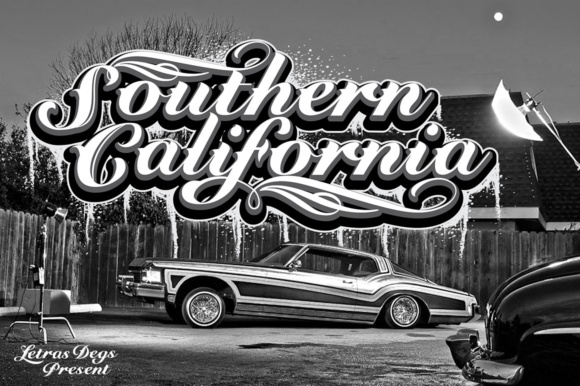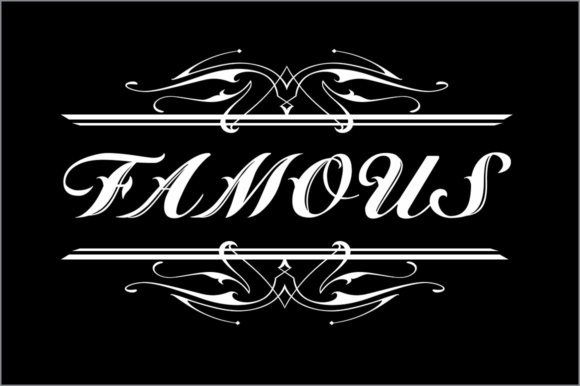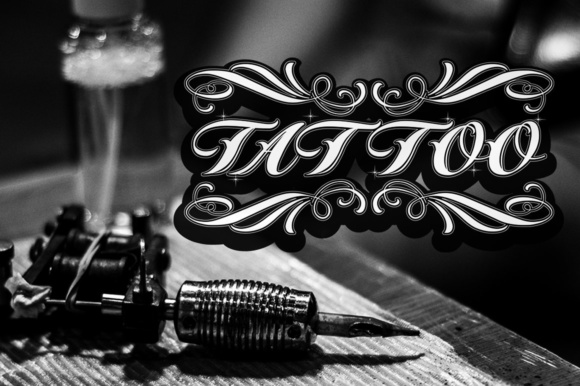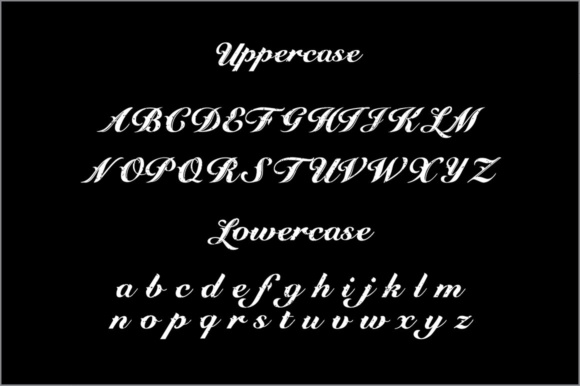
HomeScript FontsSouthern California Font Script Fonts Southern California Font FacebookXPinterestWhatsApp Southern California Font Poster 2 Southern California Font Poster 3 Southern California Font Poster 4 About Southern California Font The Southern California is a script font inspired from the southern California lifestyle. DOWNLOAD NOW People also explored Mellanie Typeface Font Handletters Font Starmagic Font Arthevas Font Girisuba Turkey Font Wake Snake Font Sticky Font Fibre Font 503 0 TagsSouthern California Font Previous articleSunoise FontNext articleThe Rupture Font LEAVE A REPLY Cancel reply Comment: Please enter your comment! Name:* Please enter your name here Email:* You have entered an incorrect email address! Please enter your email address here Website: Save my name, email, and website in this browser for the next time I comment. Personal Use Free Bebas Neue Font Personal Use Free Read more about this font Maxwell Personal Use Free Read more about this font Sunflower Personal Use Free Read more about this font My Ugly Handwritting Personal Use Free Read more about this font BLOG How to Cut Any Font on Cricut: Convert a Font to SVG (Free) Turn any font into a clean SVG so it cuts crisp on Cricut - a quick 3-step workflow using a free font-to-SVG tool. Transform Your Website: Elevate Your Typography with 7 Best Web Font Generators Elegant Wedding Invitation Fonts – Handwritten & Script Fonts Free vs Paid Fonts: Why Investing in Premium Fonts Is Worth It